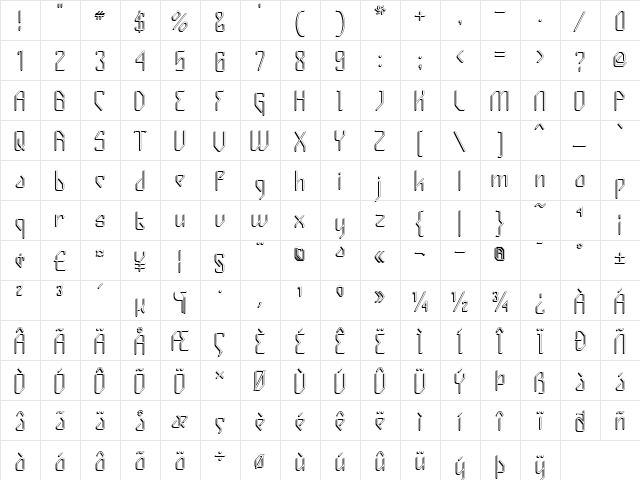
Gizmo - Shade Regular
| Designer | Graham Meade |
Design Context for Gizmo - Shade Typeface
Gizmo - Shade is a composed and adaptable typeface that performs quietly and consistently across a wide range of design contexts.